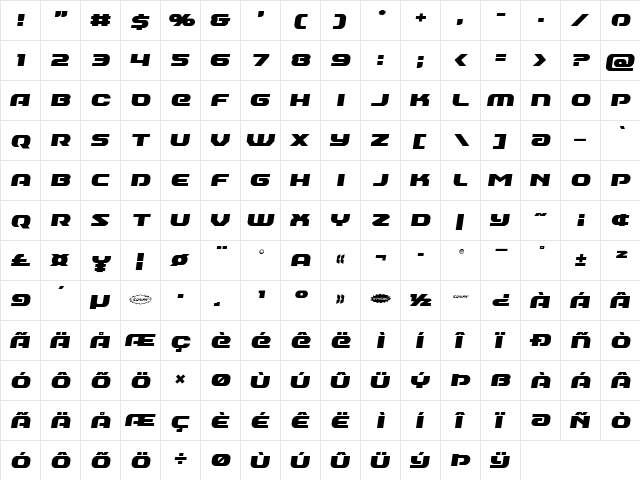
Annapolis Semi-Italic Semi-Italic
Design Context for Annapolis Semi-Italic Typeface
Annapolis Semi-Italic is a composed and adaptable typeface that performs quietly and consistently across a wide range of design contexts. The dynamic lean of this cut emphasises speed and emphasis in any layout.
Pro Tip: Use Annapolis Semi-Italic for emphasis, pull quotes, and subheadings where its slanted energy can add rhythm to the layout.